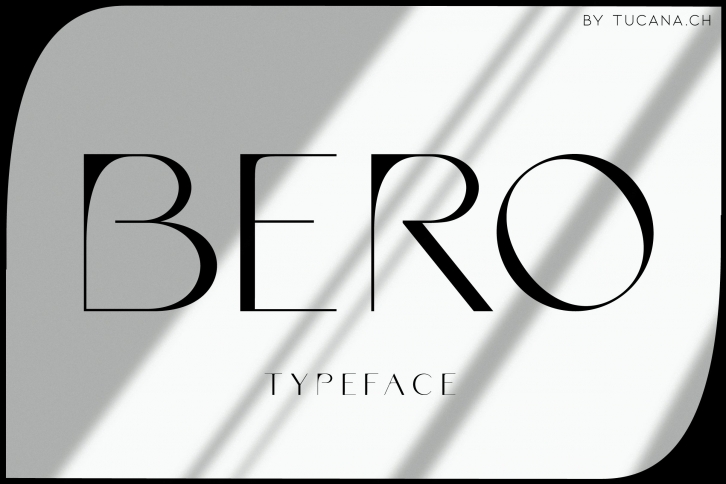
BERO – An elegant sans serif font
BERO is a clean and modern. This typeface gives a elegant look to any design.
- Character set A-Z
- Numerals & Punctuation